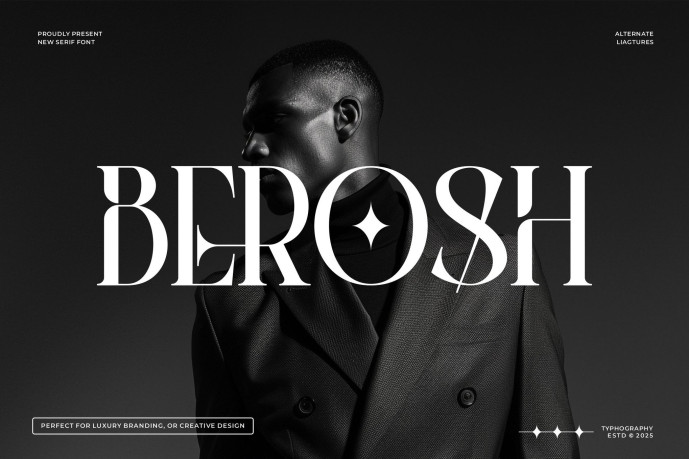
Berosh Modern Classy Serif Font
Berosh Modern Classy Serif Font is a modern and classy font type for all branding and logo designs. This modern and classy Serif font has a beautiful character. This font is suitable for invitation card designs, cool logos, movie titles, movie names, business cards, book titles, brand names, and various other designs. Berosh Serif is a smooth serif font that exudes sophistication and the moment. Its stylish ligatures make this font a perfect partner for any project.
FEATURE :
• Ligature
• Uppercase and lowercase
• Numbering and Punctuation